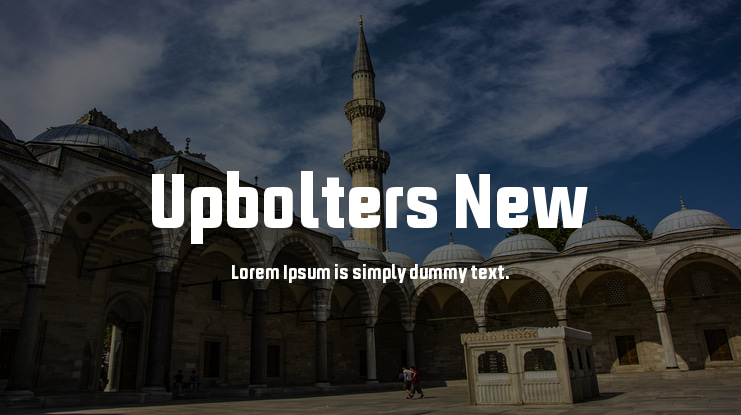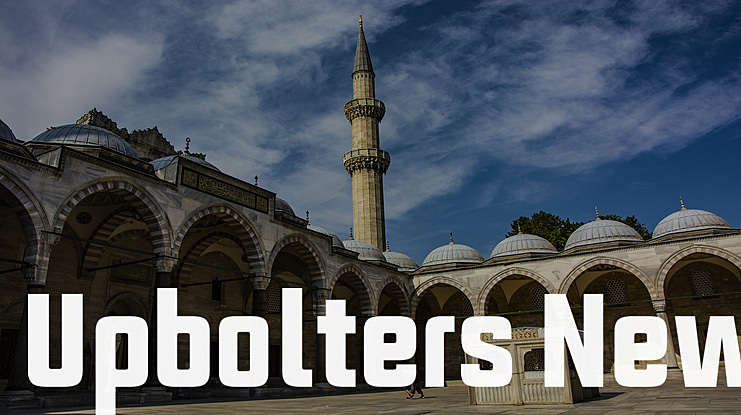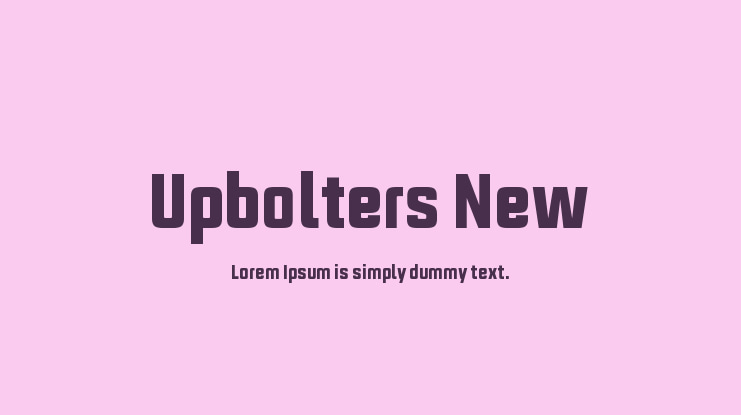
Upbolters New Font Family
This is a new version of UPBOLTERS font. It completes with lowercase and supports Eastern European characters.
The Upbolters New Font comes in 2 variations: Regular & Italic. As the previous version, Upbolters is strong and bold, which makes it great for titles & headlines. But at the same time it is also very legible, which makes it great for bigger body text, banners, flyers and other designs